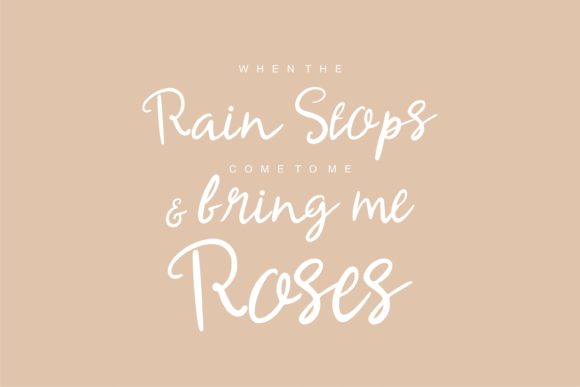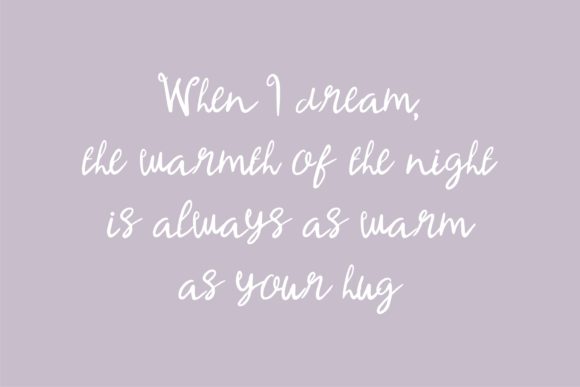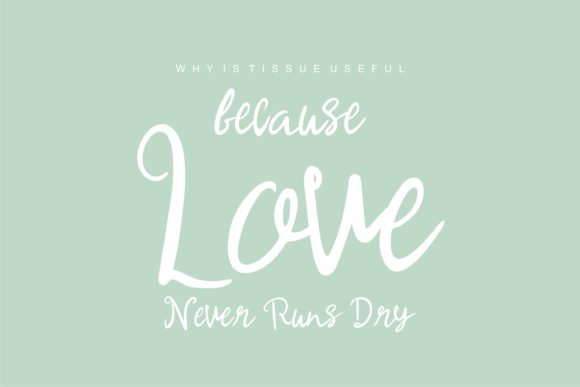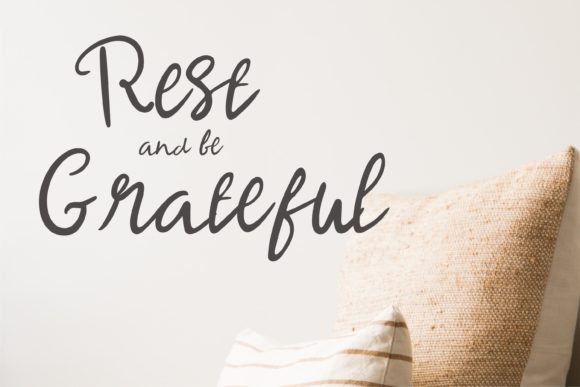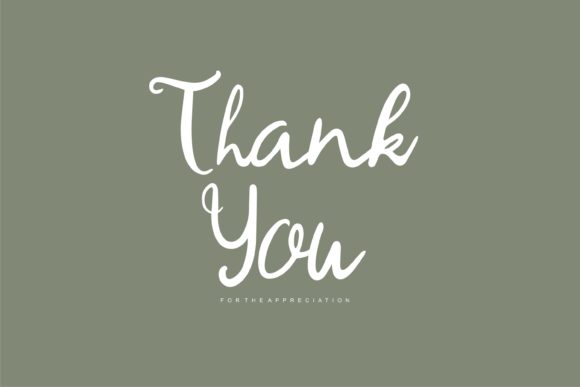
Ariela Font: Elevate Your Designs with Elegance and Flair
Are you a designer or crafter looking for a font that can add a touch of sophistication and whimsy to your creative projects? Look no further than Ariela Font, a beautiful and versatile script font that’s sure to make your designs shine. In this article, we’ll dive into the world of Ariela Font, exploring its features, benefits, and uses, and show you how to make the most of this stunning font.
What is Ariela Font?
Ariela Font is a flowing and delicate script font that’s designed to add a touch of elegance and flair to your designs. With its beautiful and well-balanced characters, Ariela Font is the perfect choice for a wide range of creative projects, from wedding invitations and branding materials to digital graphics and craft projects.
Key Features of Ariela Font
• Flowing and delicate design: Ariela Font features a beautiful, cursive design that’s perfect for adding a touch of sophistication to your designs.
• Well-balanced characters: Each character in Ariela Font is carefully crafted to ensure that they’re well-balanced and visually appealing.
• Versatile: Ariela Font is suitable for a wide range of designs, from formal and elegant to playful and whimsical.
Benefits of Using Ariela Font
So why choose Ariela Font for your next design project? Here are just a few benefits of using this stunning font:
• Adds elegance and sophistication: Ariela Font is the perfect choice for adding a touch of elegance and sophistication to your designs.
• Enhances creativity: With its beautiful and flowing design, Ariela Font can help inspire your creativity and take your designs to the next level.
Uses for Ariela Font
Ariela Font is a versatile font that can be used for a wide range of creative projects, including:
• Wedding invitations and stationery: Add a touch of elegance and sophistication to your wedding invitations and stationery with Ariela Font.
• Branding materials: Use Ariela Font to create beautiful and professional-looking branding materials, such as logos, business cards, and brochures.
• Digital graphics: Ariela Font is perfect for adding a touch of whimsy and elegance to your digital graphics, such as social media graphics and blog posts.
• Craft projects: Use Ariela Font to add a personal touch to your craft projects, such as scrapbooking, card making, and DIY gifts.
Tips for Using Ariela Font
Here are a few tips for getting the most out of Ariela Font:
• Experiment with different sizes and colors: Try out different sizes and colors of Ariela Font to see what works best for your design.
• Pair with other fonts: Ariela Font pairs well with a range of other fonts, so don’t be afraid to experiment with different combinations.
• Use it sparingly: While Ariela Font is beautiful, it can be overwhelming if used too much. Use it sparingly to add a touch of elegance and sophistication to your designs.
Ariela Font is a beautiful and versatile script font that’s perfect for designers and crafters looking to add a touch of elegance and whimsy to their creative projects. With its flowing and delicate design, well-balanced characters, and versatility, Ariela Font is sure to become a favorite in your font collection. So why not give it a try and see how it can elevate your designs?
Whether you’re a seasoned designer or a crafty DIY enthusiast, Ariela Font is a great addition to your toolkit. So go ahead, add it to your most creative ideas, and watch as it brings them to life!